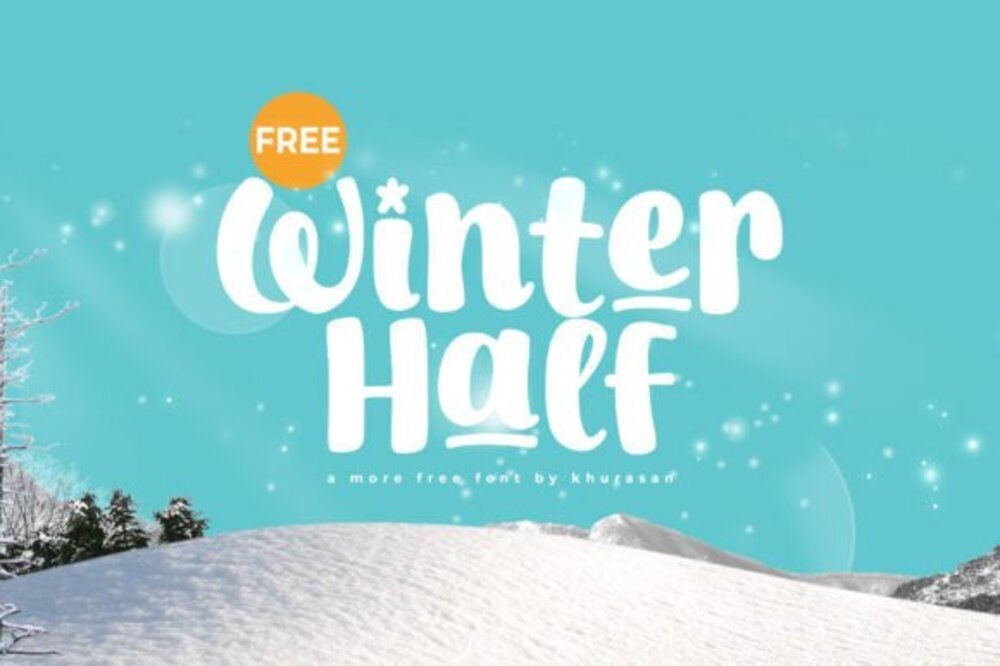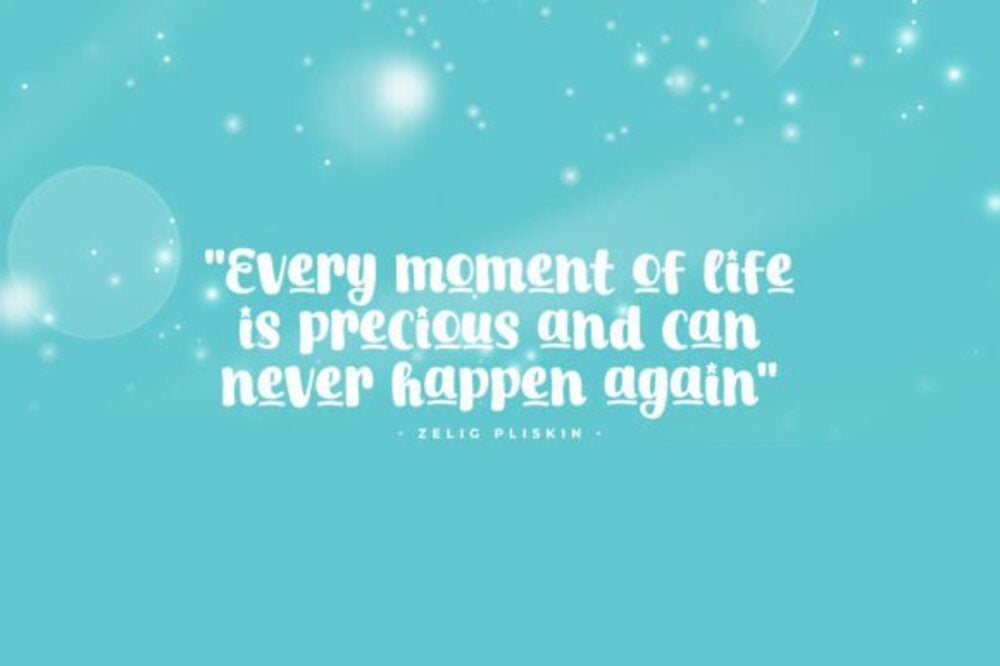
Winter Half Font
Winter Half is a graceful and elegant typeface inspired by the serene beauty of winter. Its delicate curves and refined strokes evoke a sense of calm and sophistication, perfect for seasonal designs, wedding invitations, and branding. With a subtle balance of warmth and modernity, Winter Half adds a touch of timeless charm to every project, making it truly unforgettable.